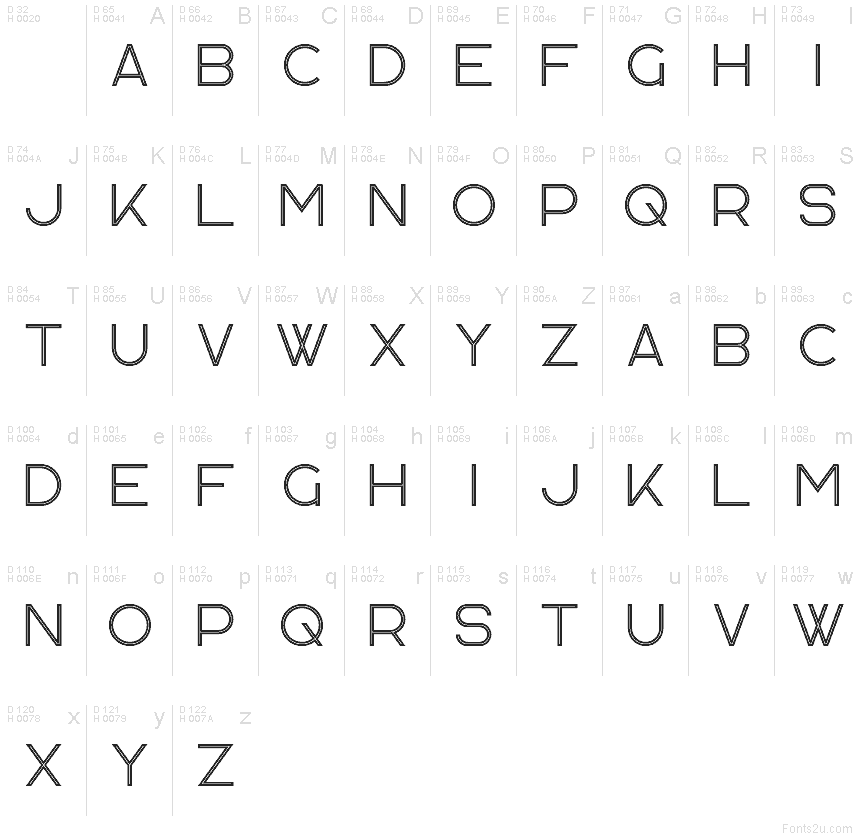
Kavo Inline
Kavo Inline font by VPcreativeshop is an expanded and modern display free font. A nice accent to its minimalistic futuristic style is the thin inline stripe which sets it apart from other display fonts.
Use Kavo Inline whether for headlines, packaging, posters, advertising banners, book covers, or logos. Even stationery designs like wedding invitations will look wonderful with this font.
Kavo is a modern, inline typeface that offers three weights, ligatures, six stunning vector designs, and six logo templates. It also supports multiple languages. This versatile font performs exceptionally well in both large and small sizes.